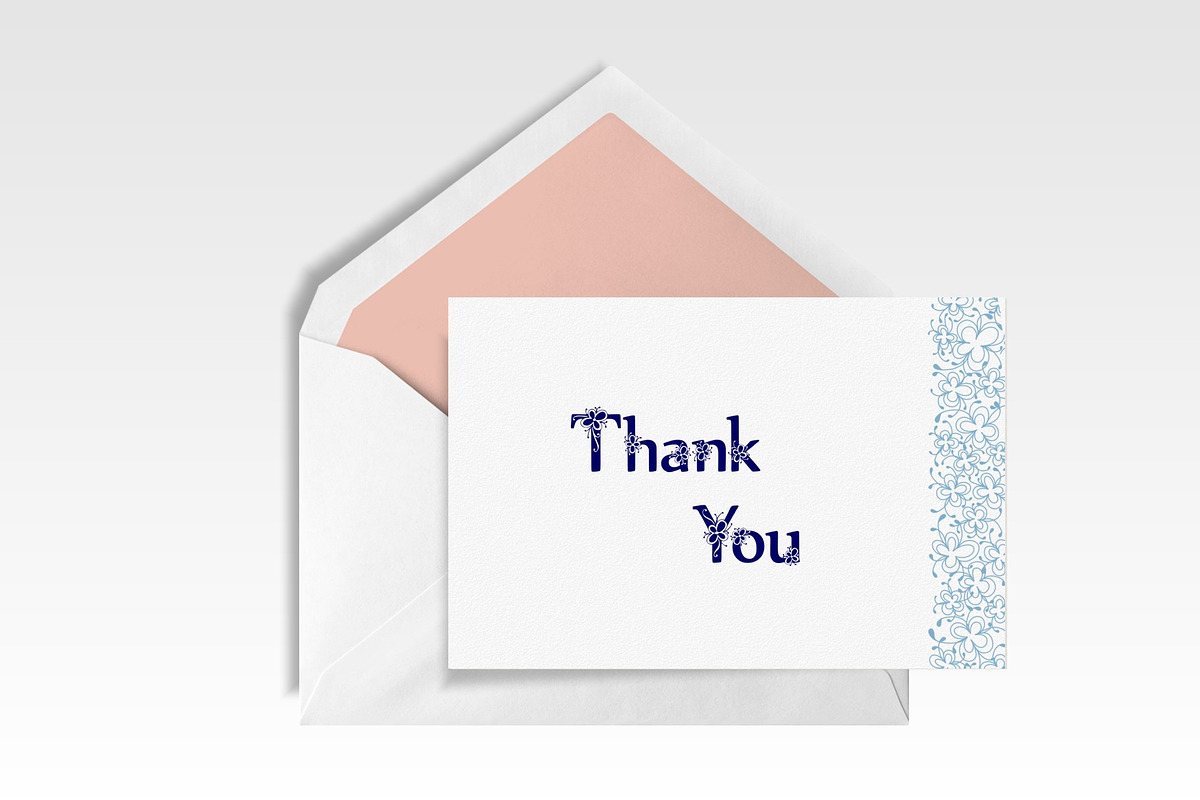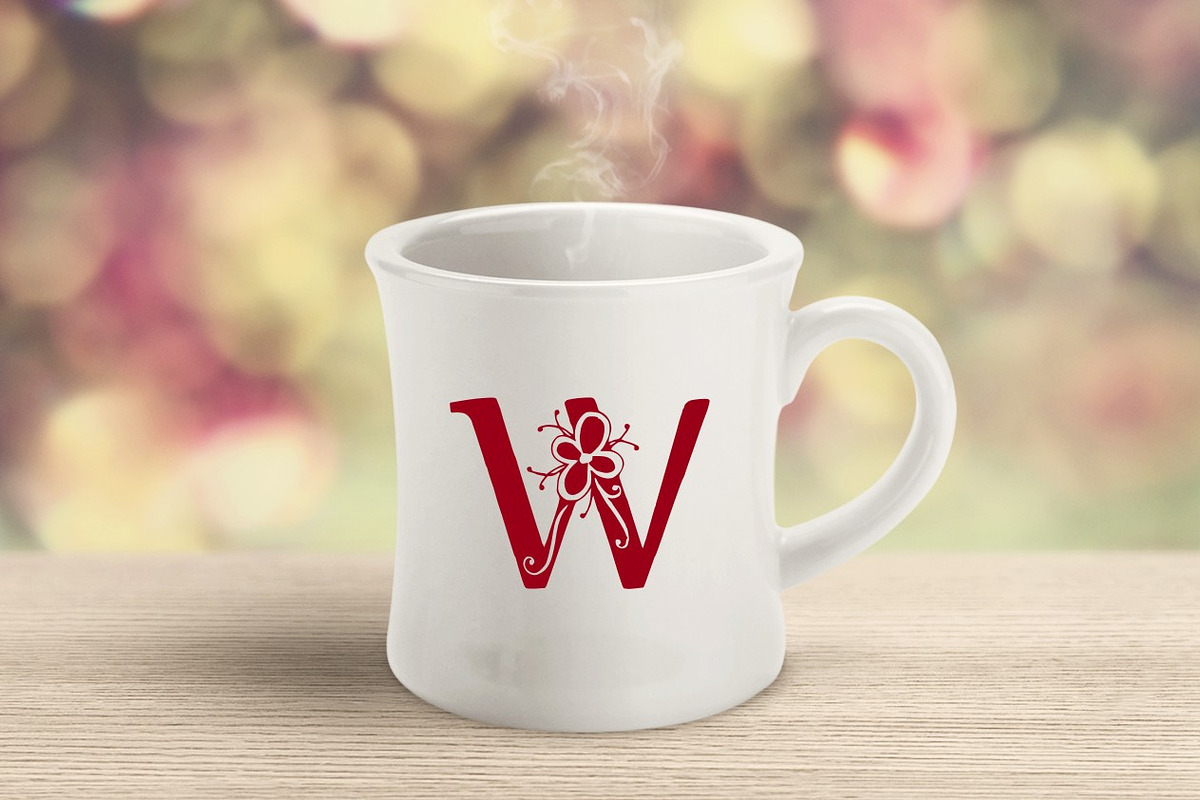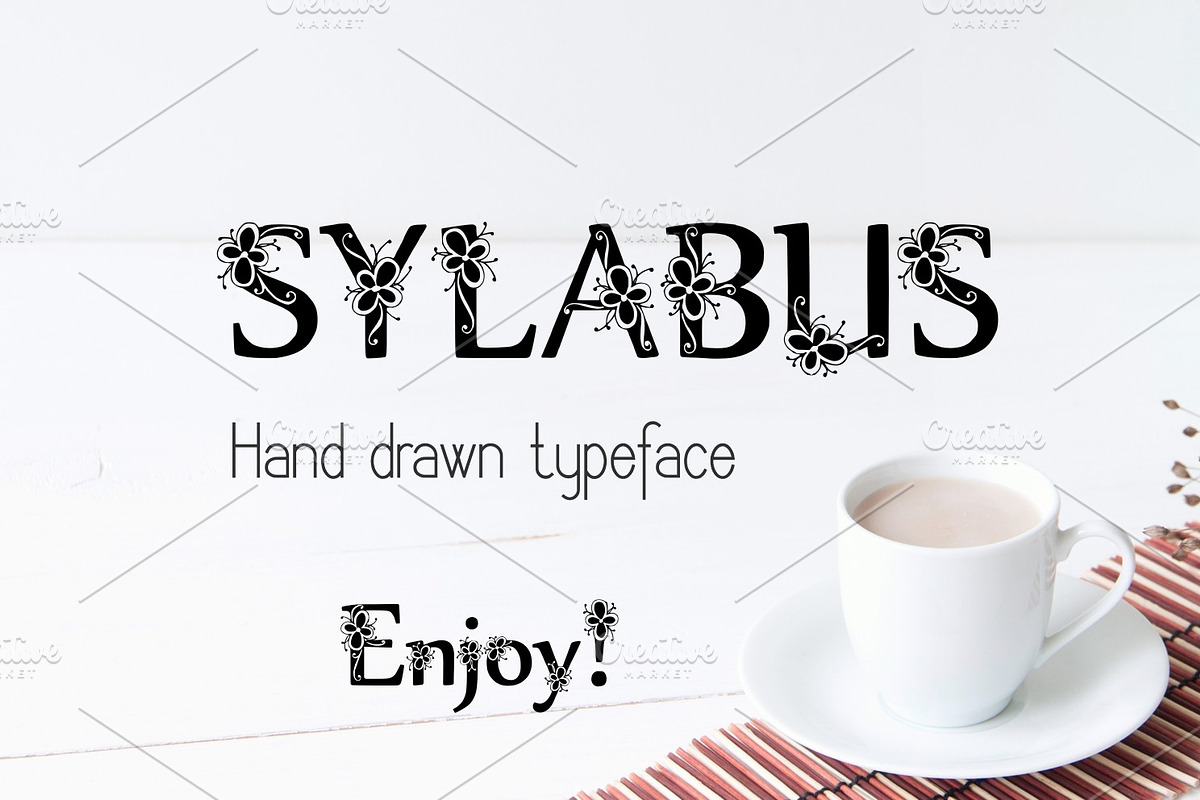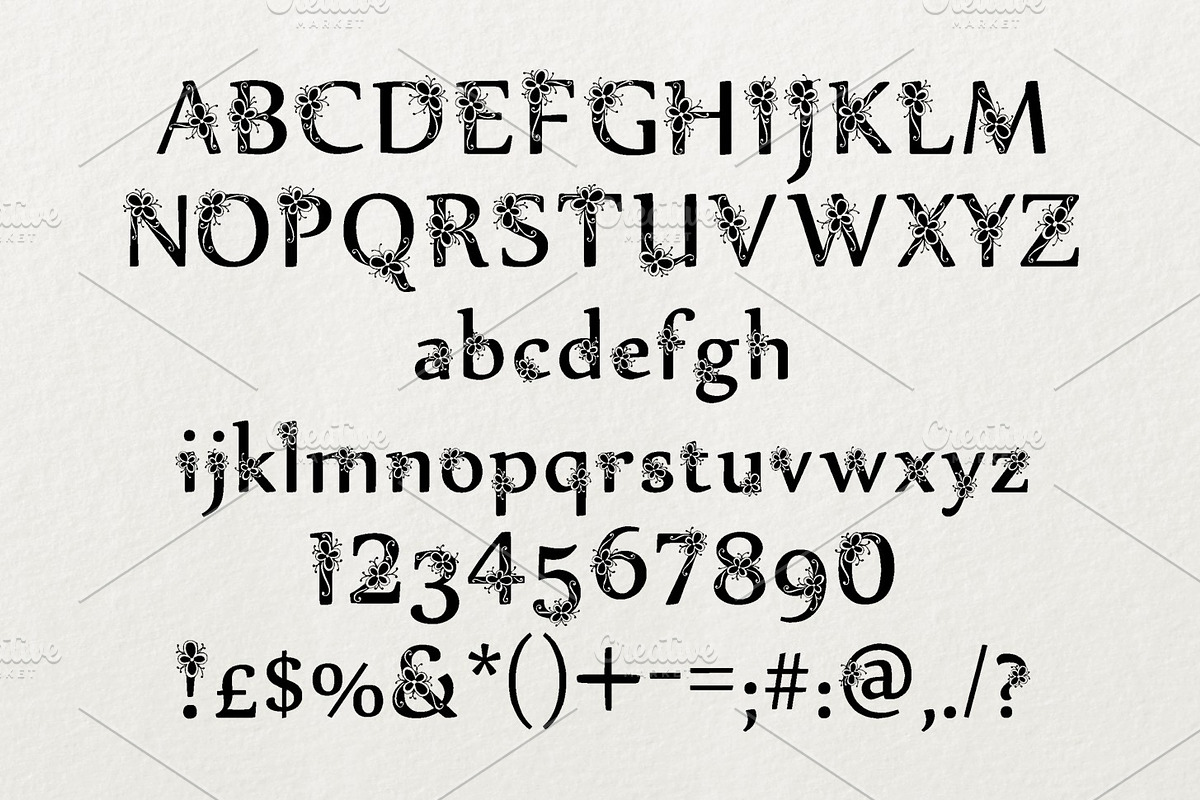
Sylabus Font
Introducing Sylabus hand drawn typeface.
Sylabus is perfect for product packaging, branding projects, cards and homeware designs - or simply as a text overlay to any background image.
Sylabus Font by Digital Typeface Studio fits naturally into Branding, posters, packaging, typography.